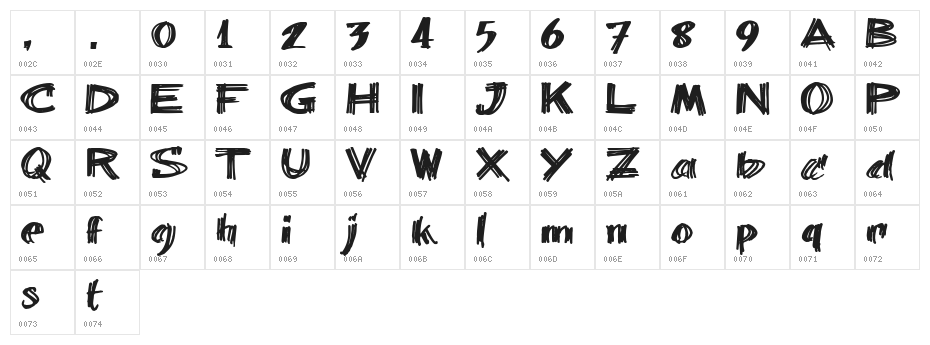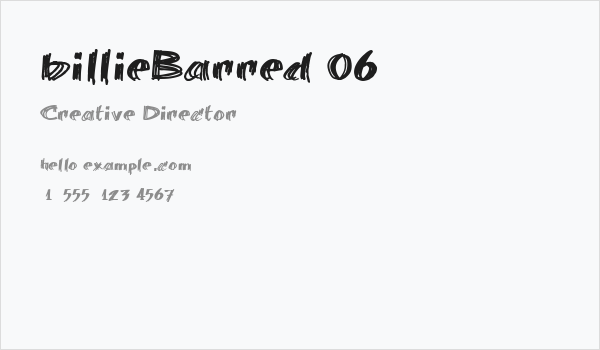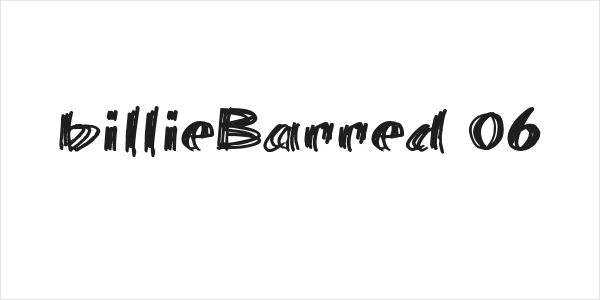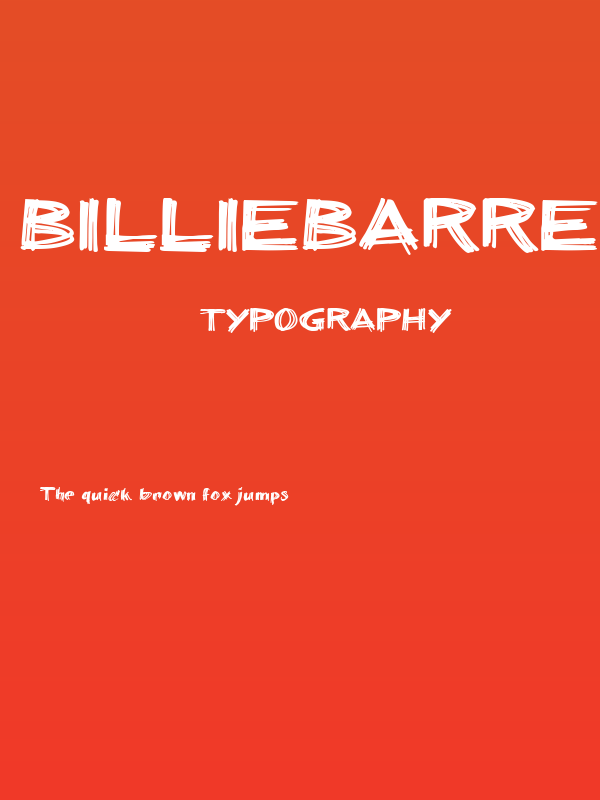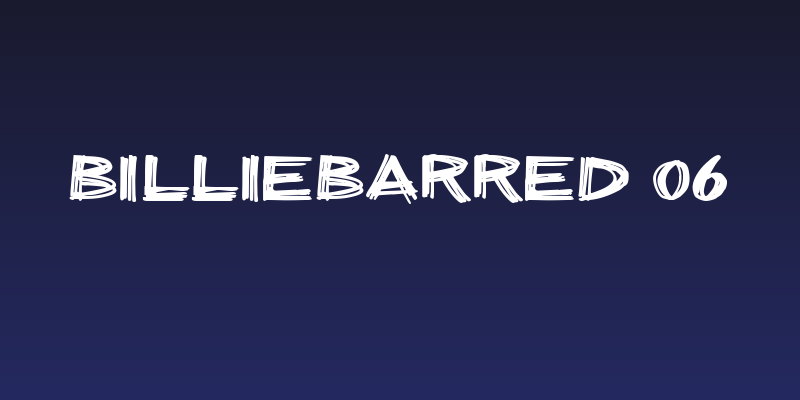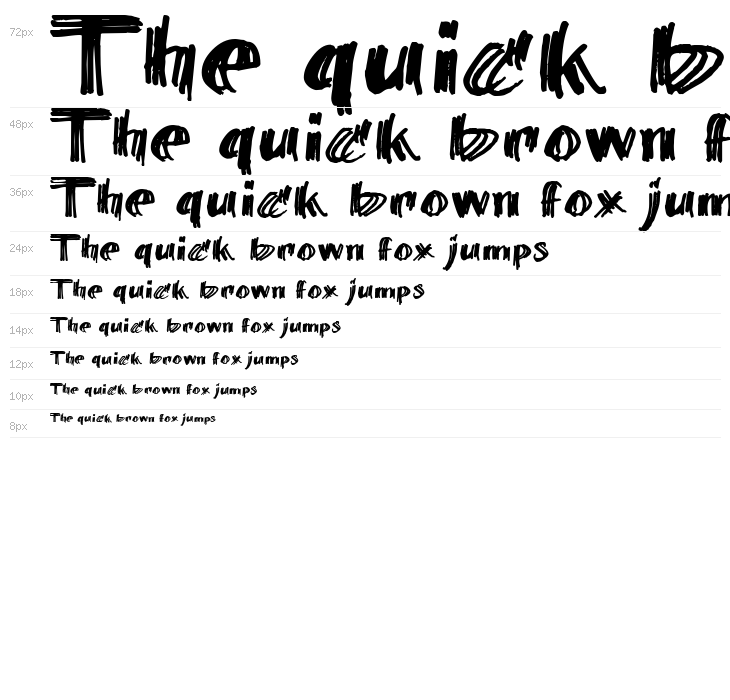
billieBarred 06 Font
billieBarred 06 Description
This font features a bold, expressive style with a hand-drawn appearance. The strokes are uneven and textured, giving it a dynamic and energetic feel. The uppercase letters are slightly wider than the lowercase, which maintains a consistent height. The numbers and special characters follow the same stylistic approach, adding to the overall cohesive look. The font's unique character is emphasized by its rough edges and irregular line thickness, making it stand out in any design.
| Proposed Projects | Ideal for posters, album covers, graffiti art, and any project requiring a bold, artistic touch. |